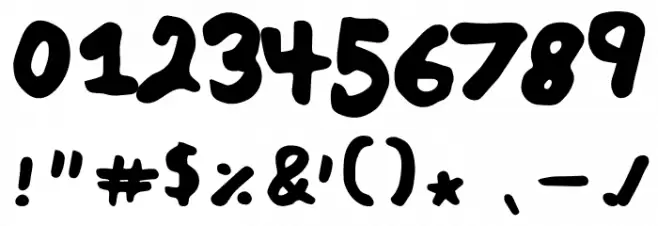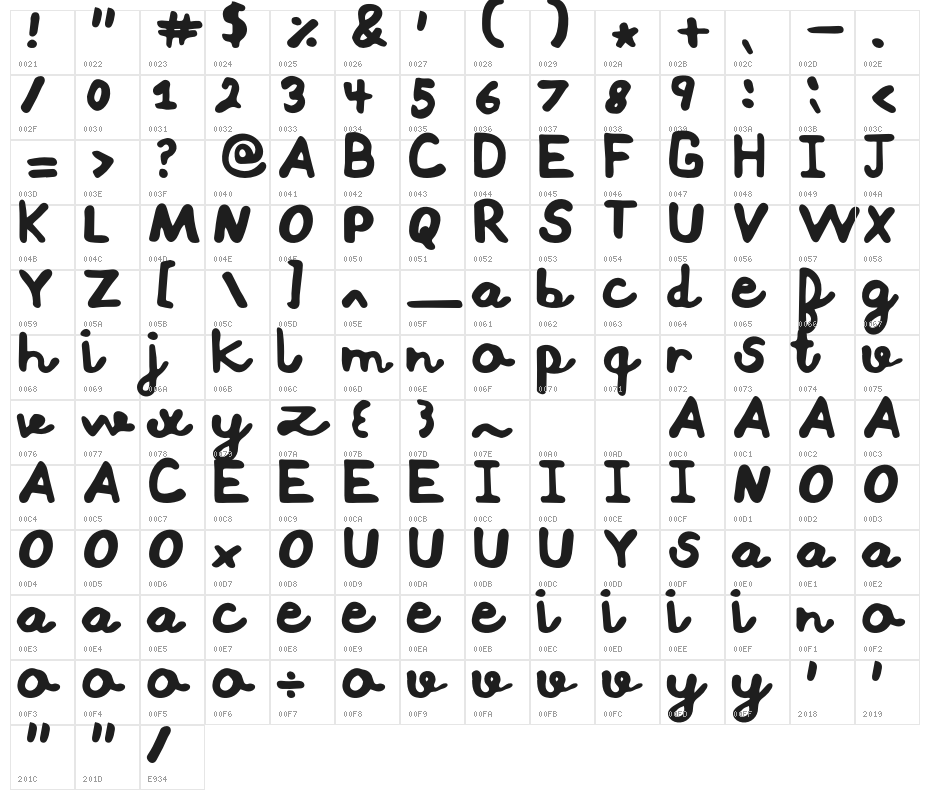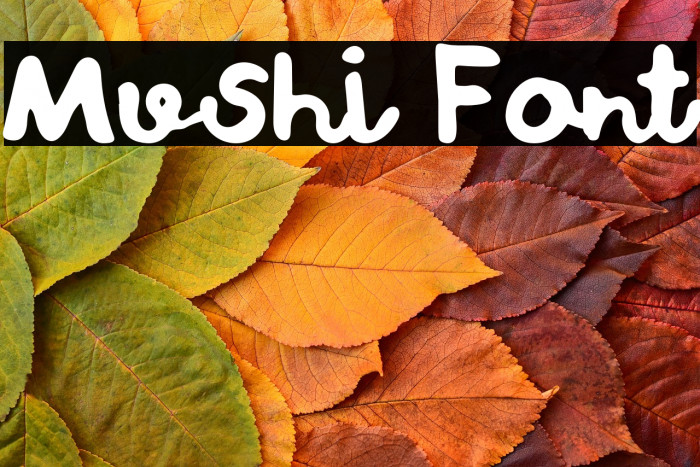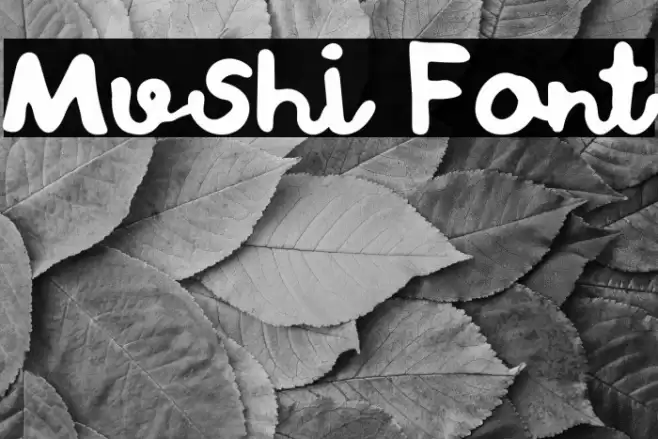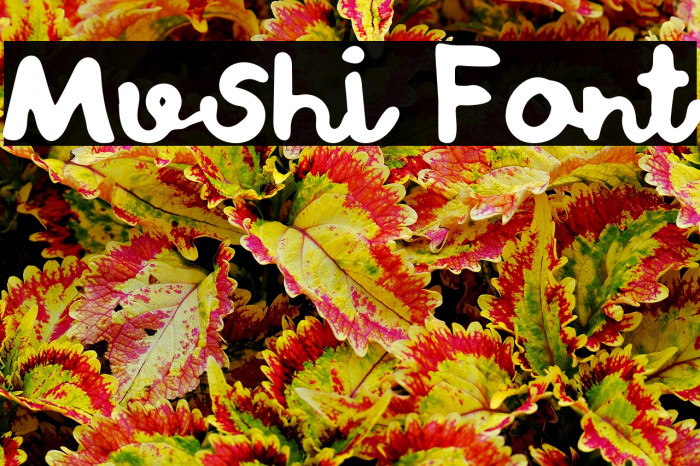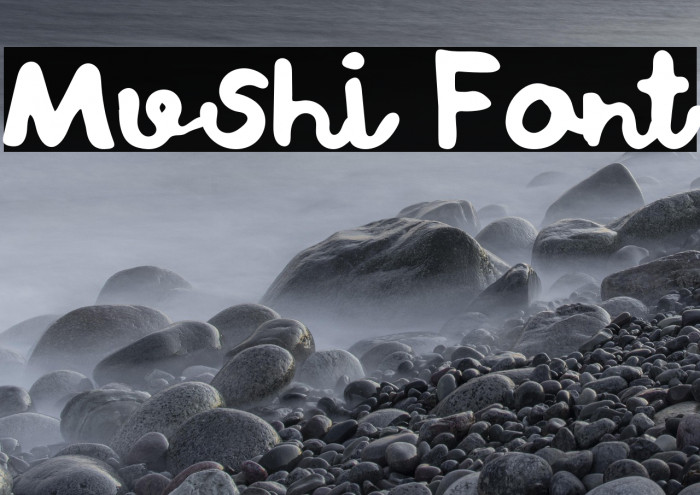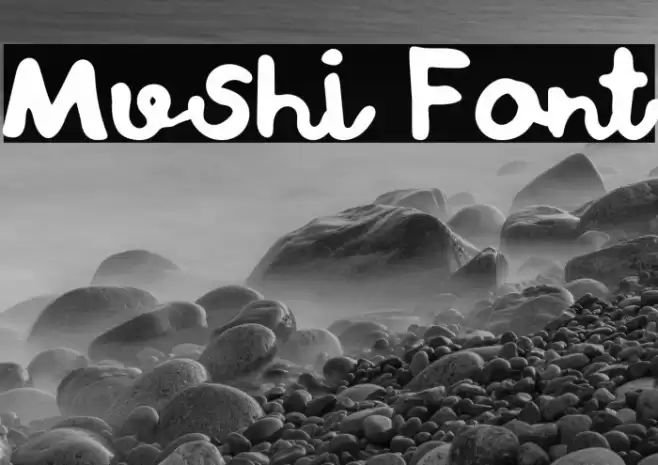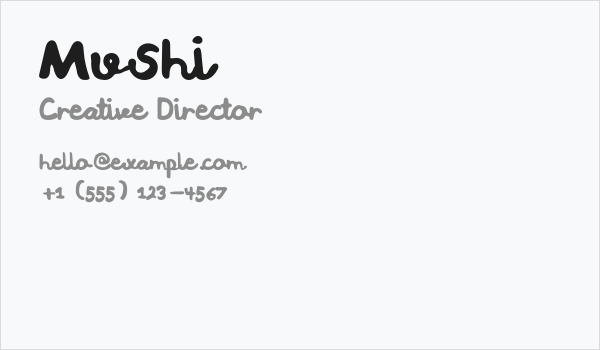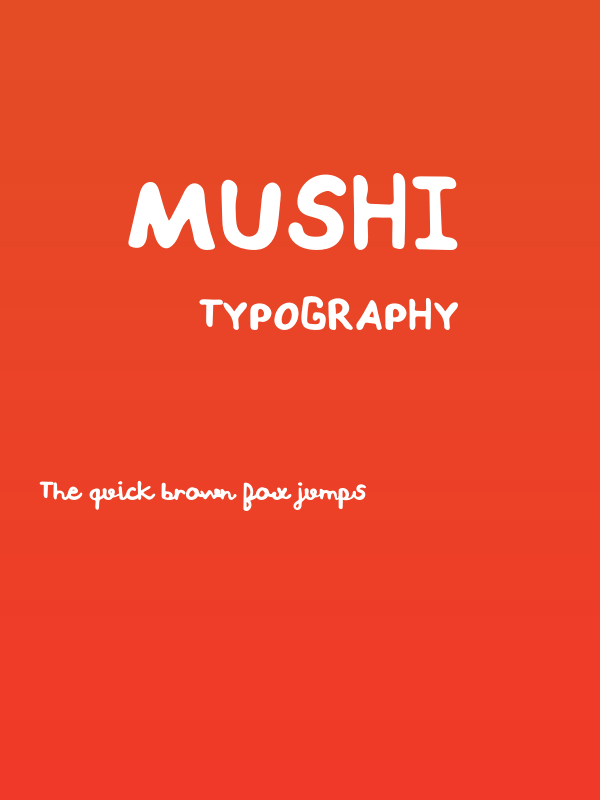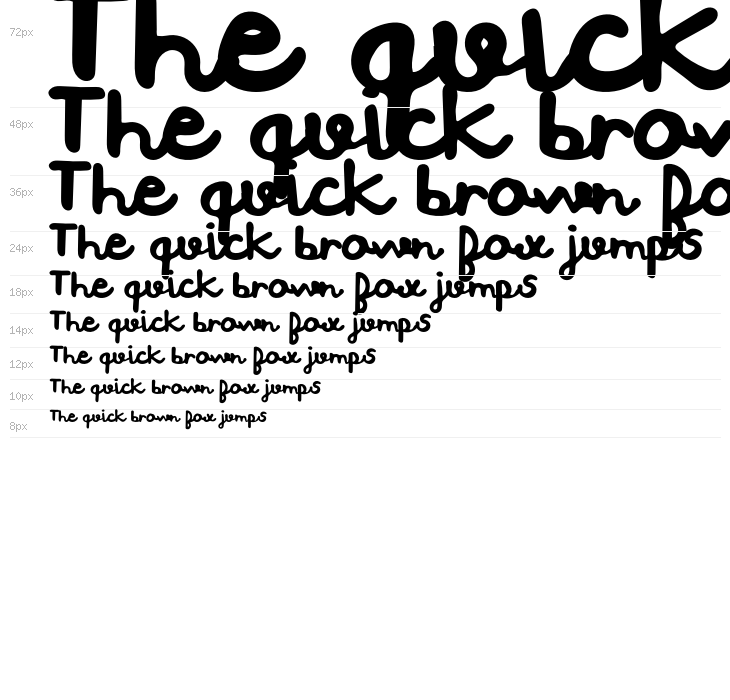
Mushi Font
Mushi Description
This playful and energetic font features bold, rounded characters with a hand-drawn aesthetic. The uppercase letters are slightly irregular, giving a whimsical and informal feel, while the lowercase letters exhibit a smooth, cursive style that adds fluidity and movement. The numbers are bold and consistent with the overall playful theme, making them easily readable. Special characters maintain the same hand-drawn quality, ensuring a cohesive look across all text. The font's thick strokes and rounded edges contribute to its friendly and approachable appearance, making it suitable for a variety of creative projects.
| Overall Style | Playful, Informal |